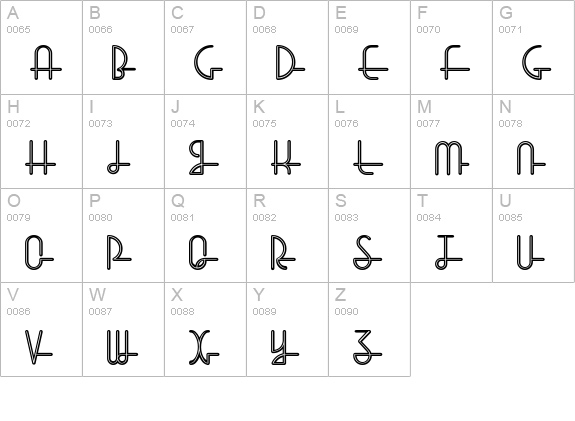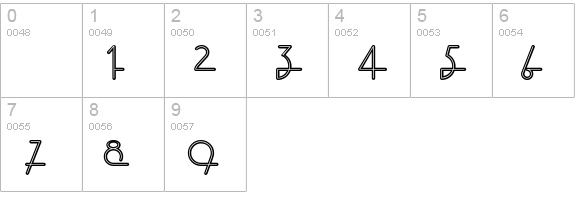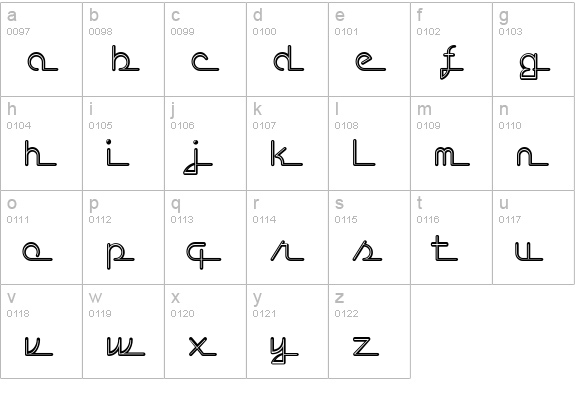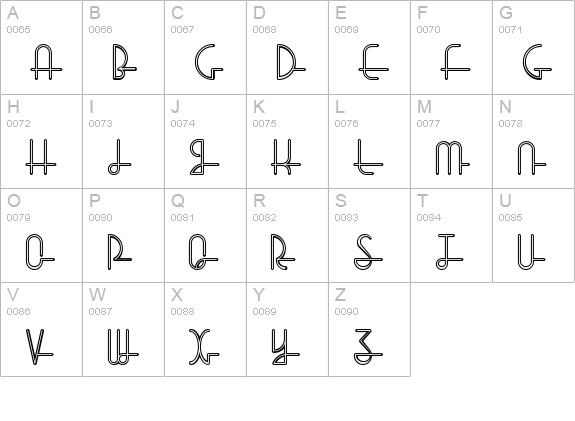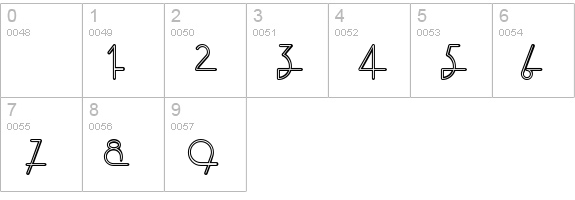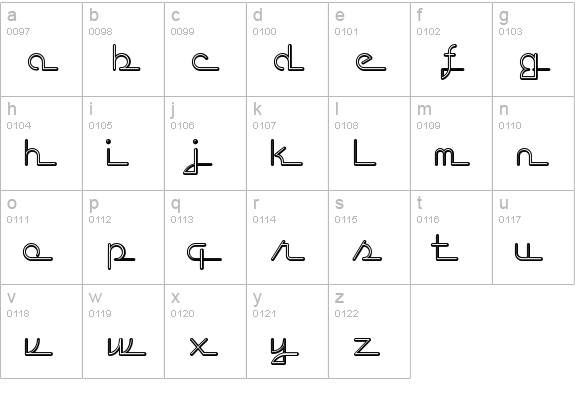
LostWages font is a stunningly unique typeface that combines elegance with a touch of nostalgia. Its intricate and delicate letterforms are reminiscent of the Art Nouveau era, with a modern twist that makes it suitable for a wide range of design projects. This font captures the essence of classic typography while adding a contemporary flair, making it perfect for both print and digital applications. Its graceful curves and clean lines create a harmonious balance that is pleasing to the eye, making any text set in LostWages font a true visual delight. But what sets LostWages font apart is not just its beautiful design, but also the fact that it is free. Yes, you read that right! LostWages font is freely available to download at FontsMarket.com. This means that you can use it for personal and commercial projects without any restrictions or limitations. Whether you are a designer looking to add a touch of sophistication to your work or a business owner in need of a stylish font for your branding materials, LostWages font is the perfect choice. Its versatility and timeless appeal make it suitable for a wide range of applications, from logo design and packaging to invitations and website headers. So why wait? Head over to FontsMarket.com and download LostWages font for free today. Elevate your designs with this exquisite typeface and let its beauty speak for itself.